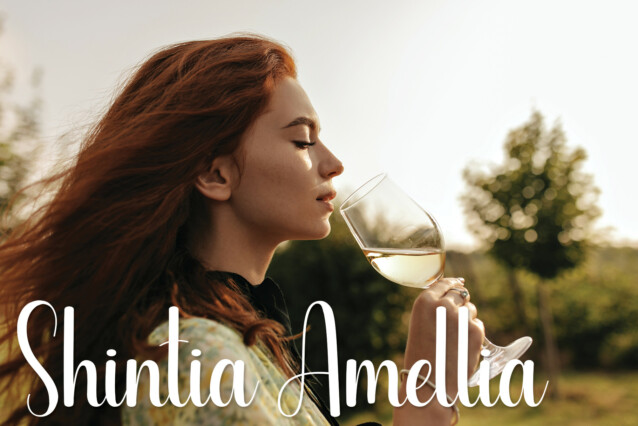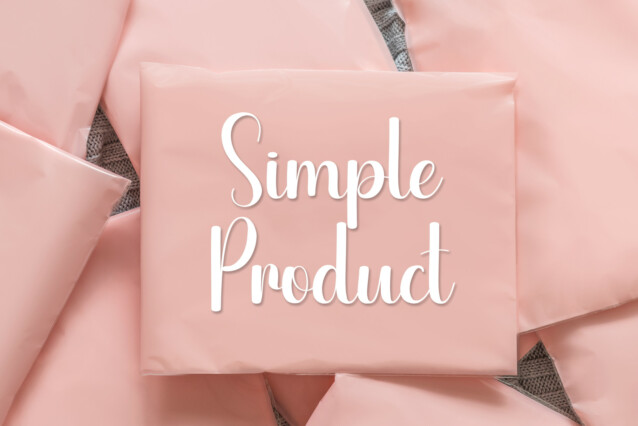
Vanilla Font
Vanilla Font is a sweet and friendly handwritten font. Cute and fun, this font is ideal for writing wedding invitations, cards, or any other design that might need a fun touch!